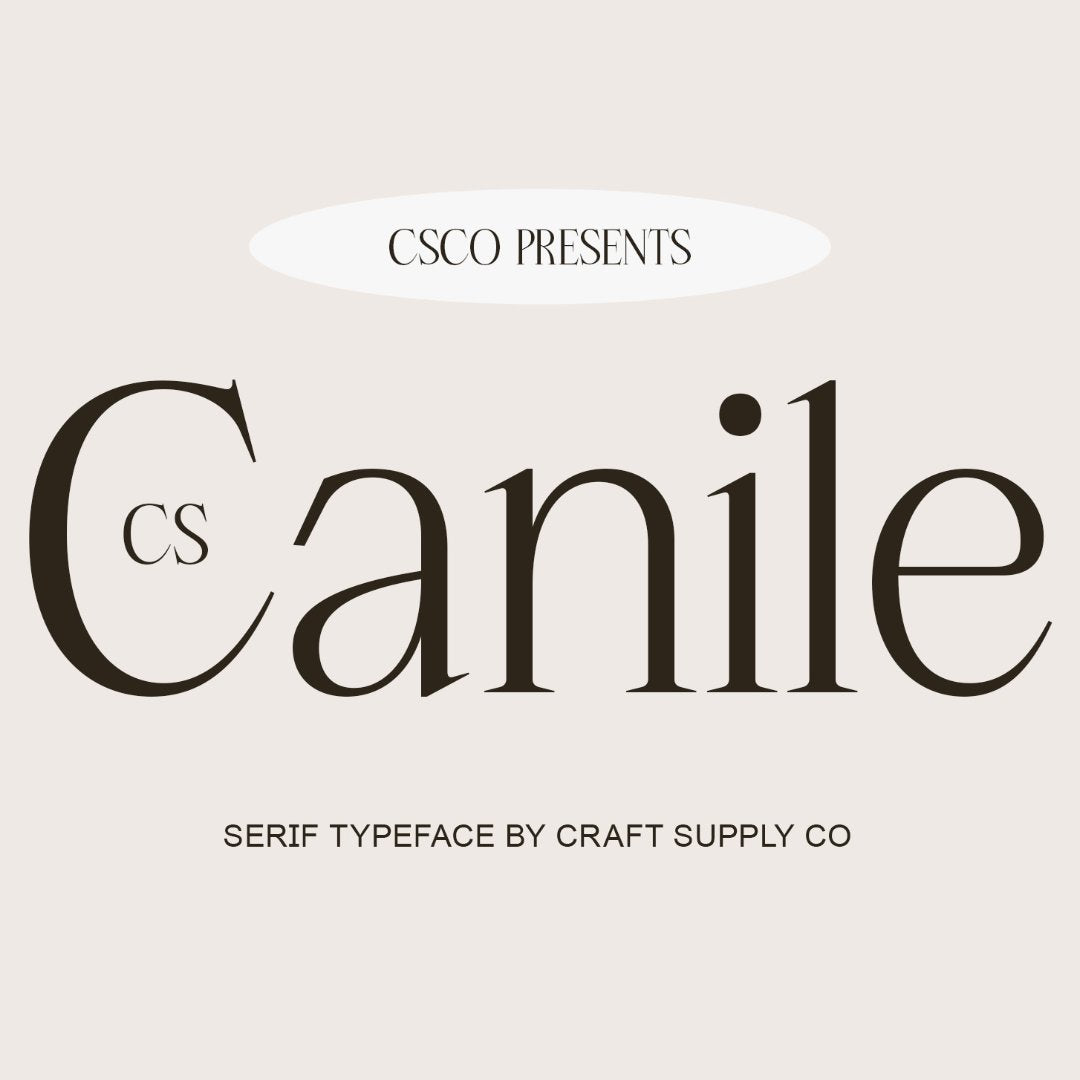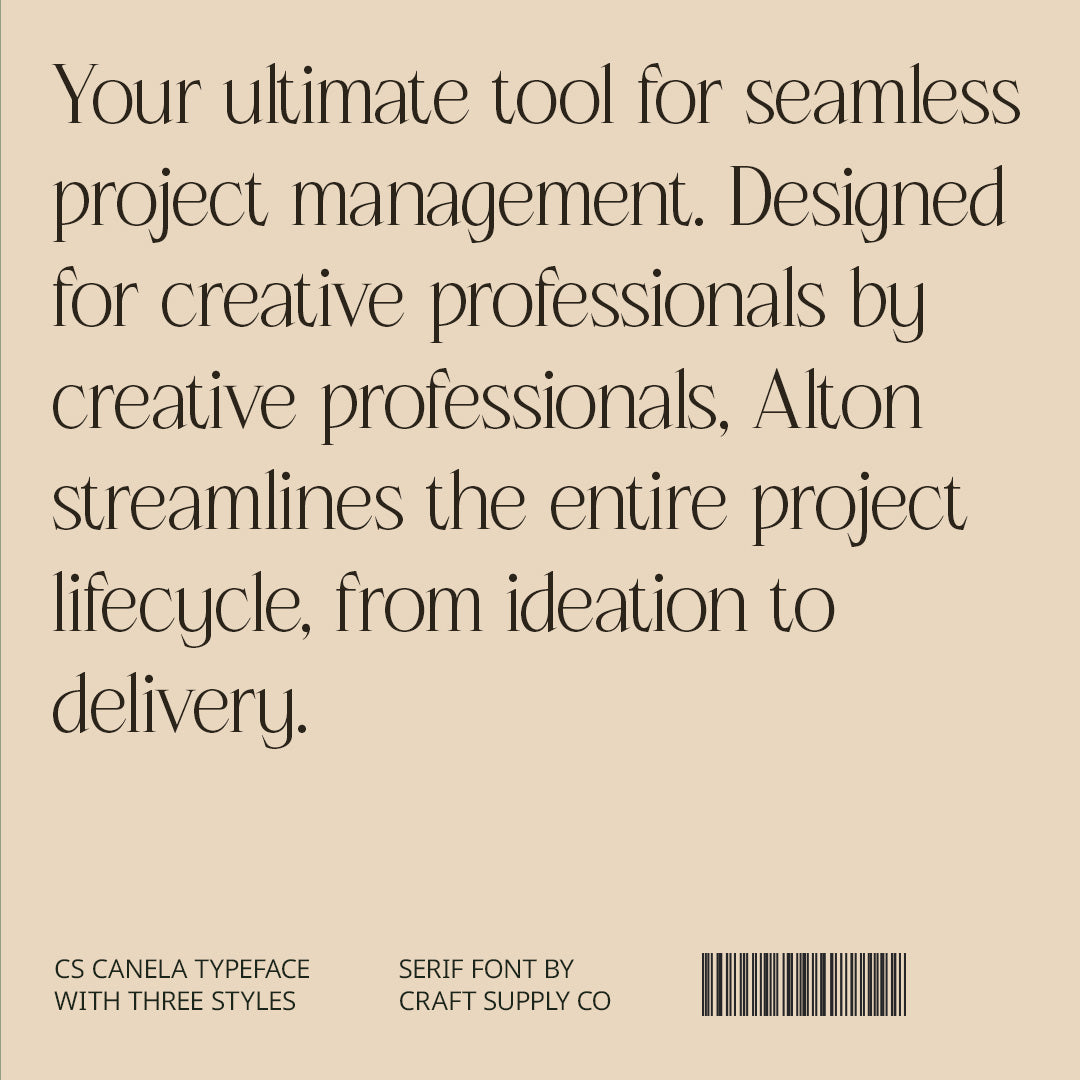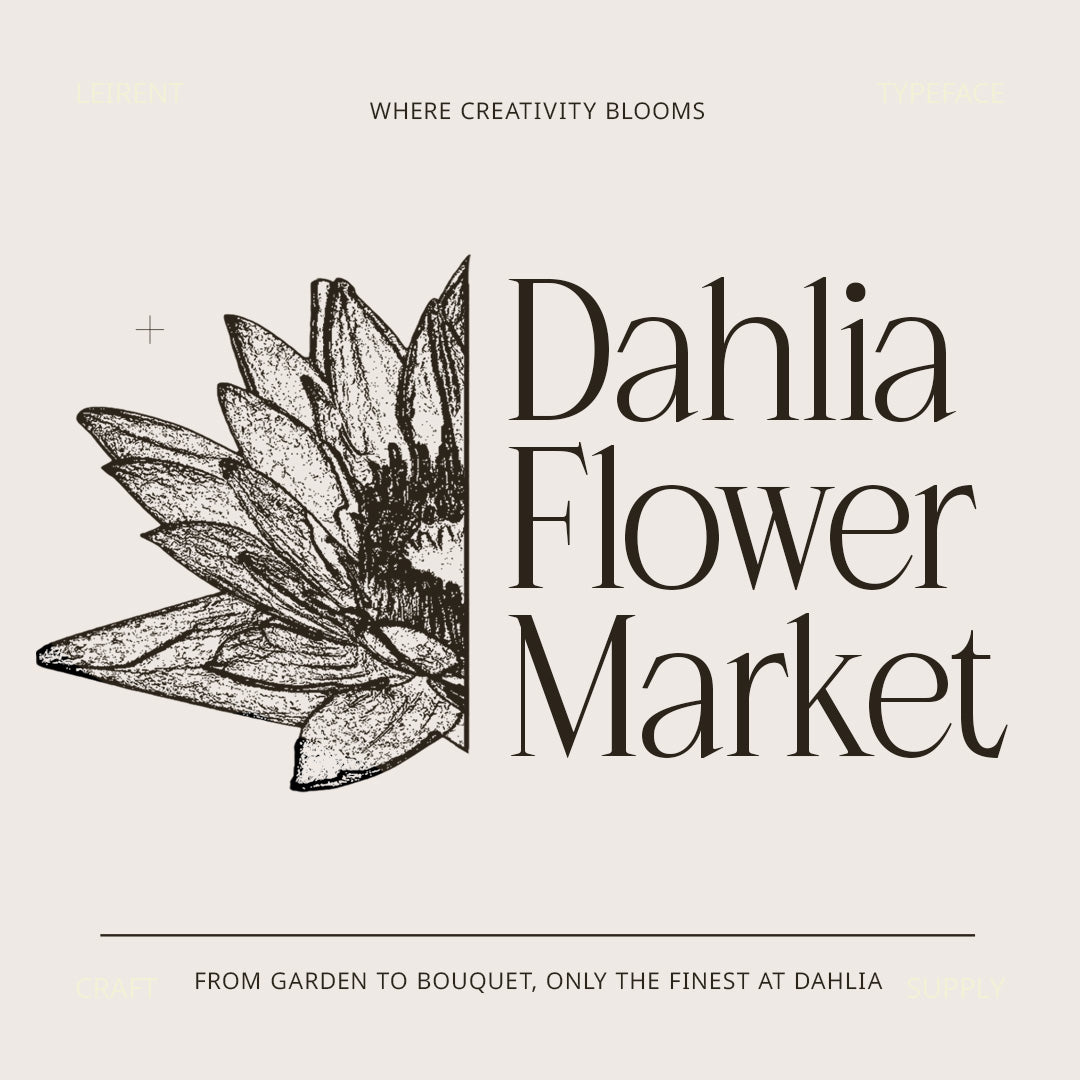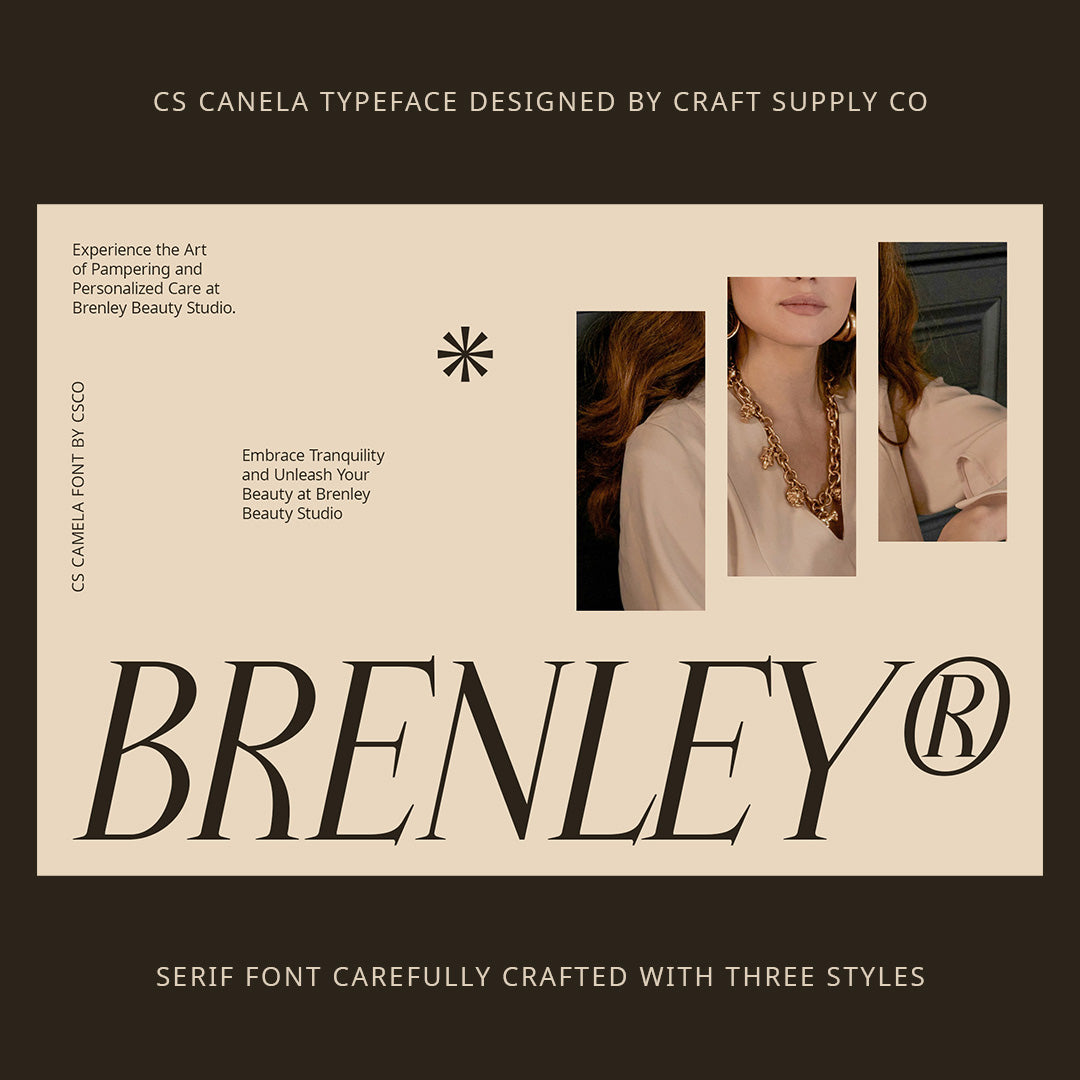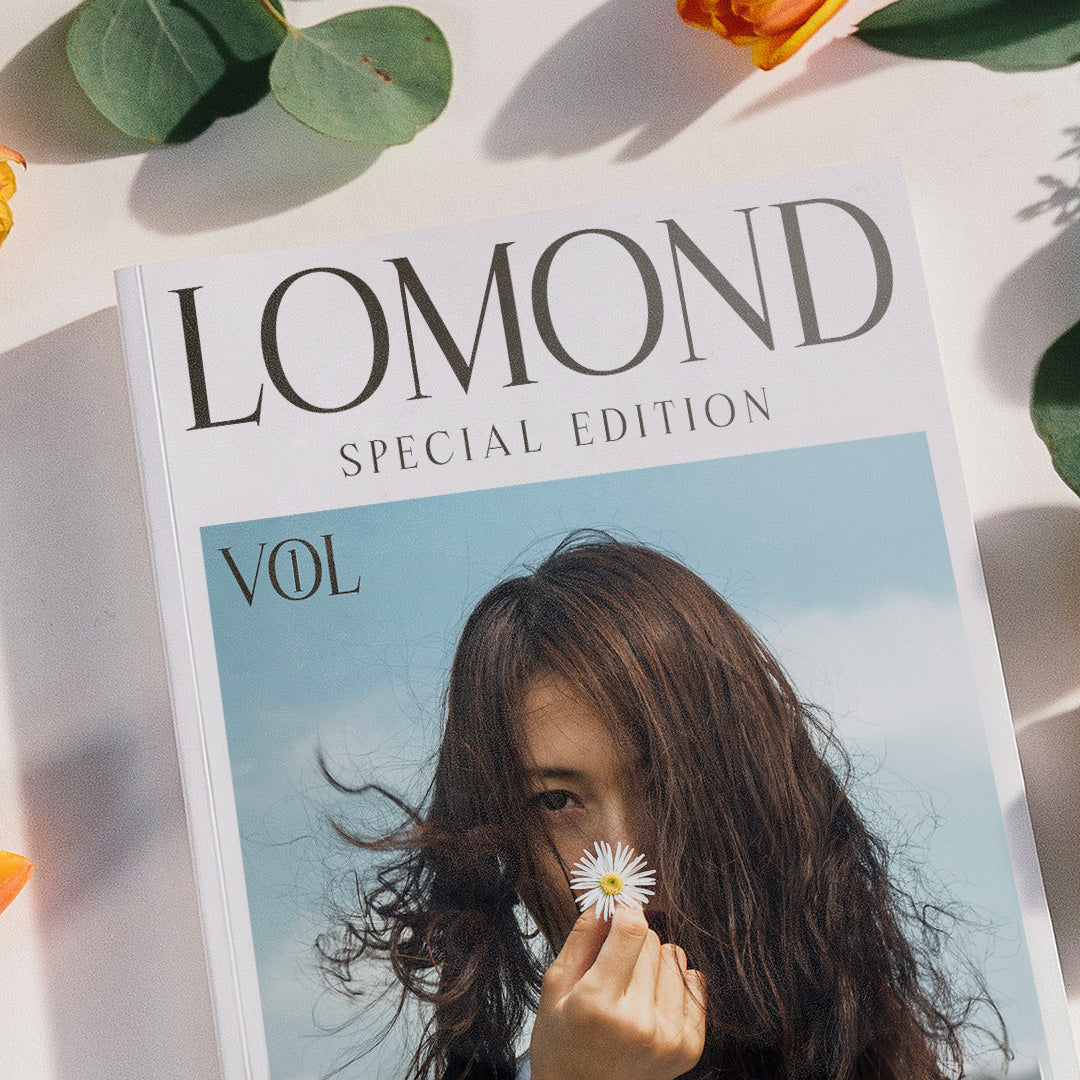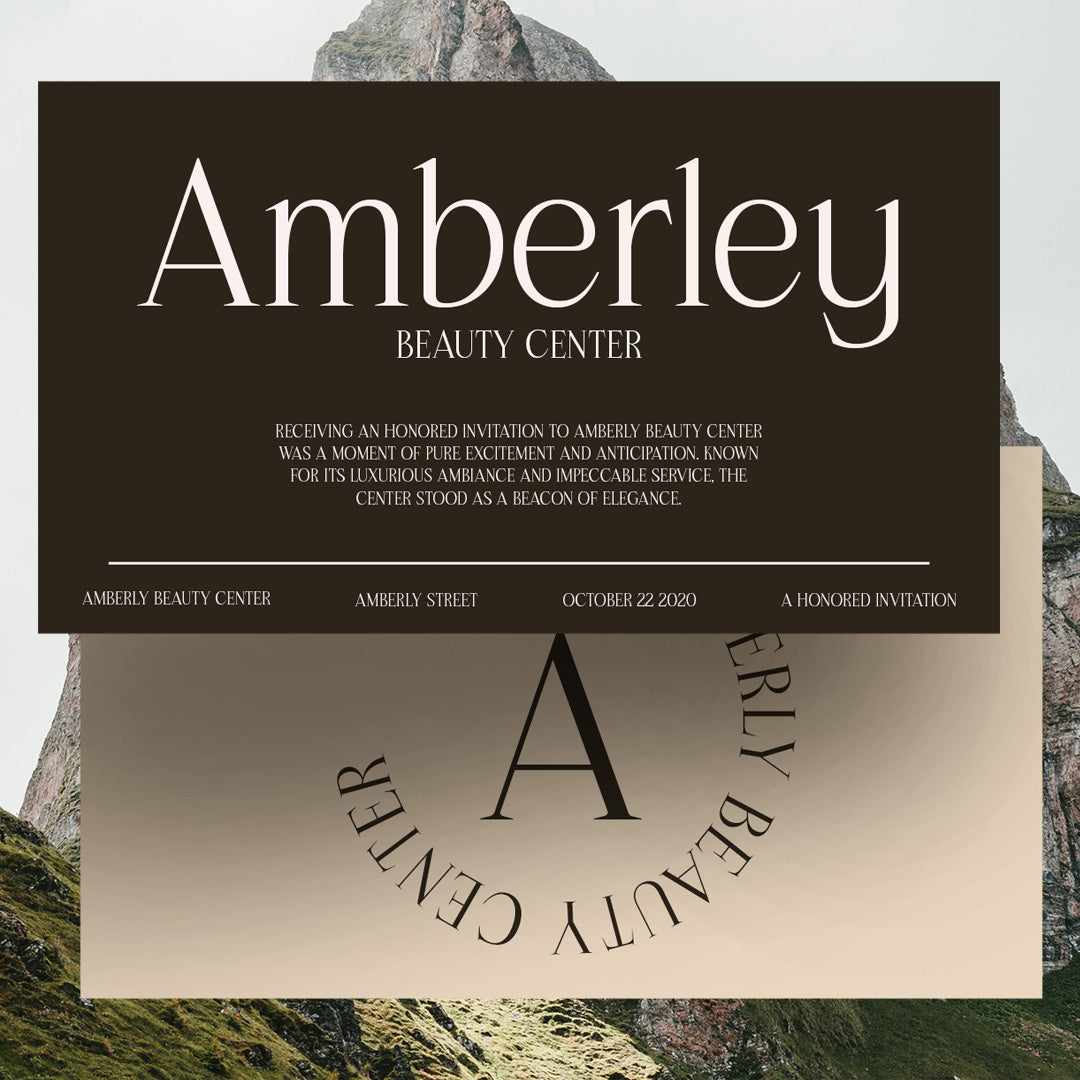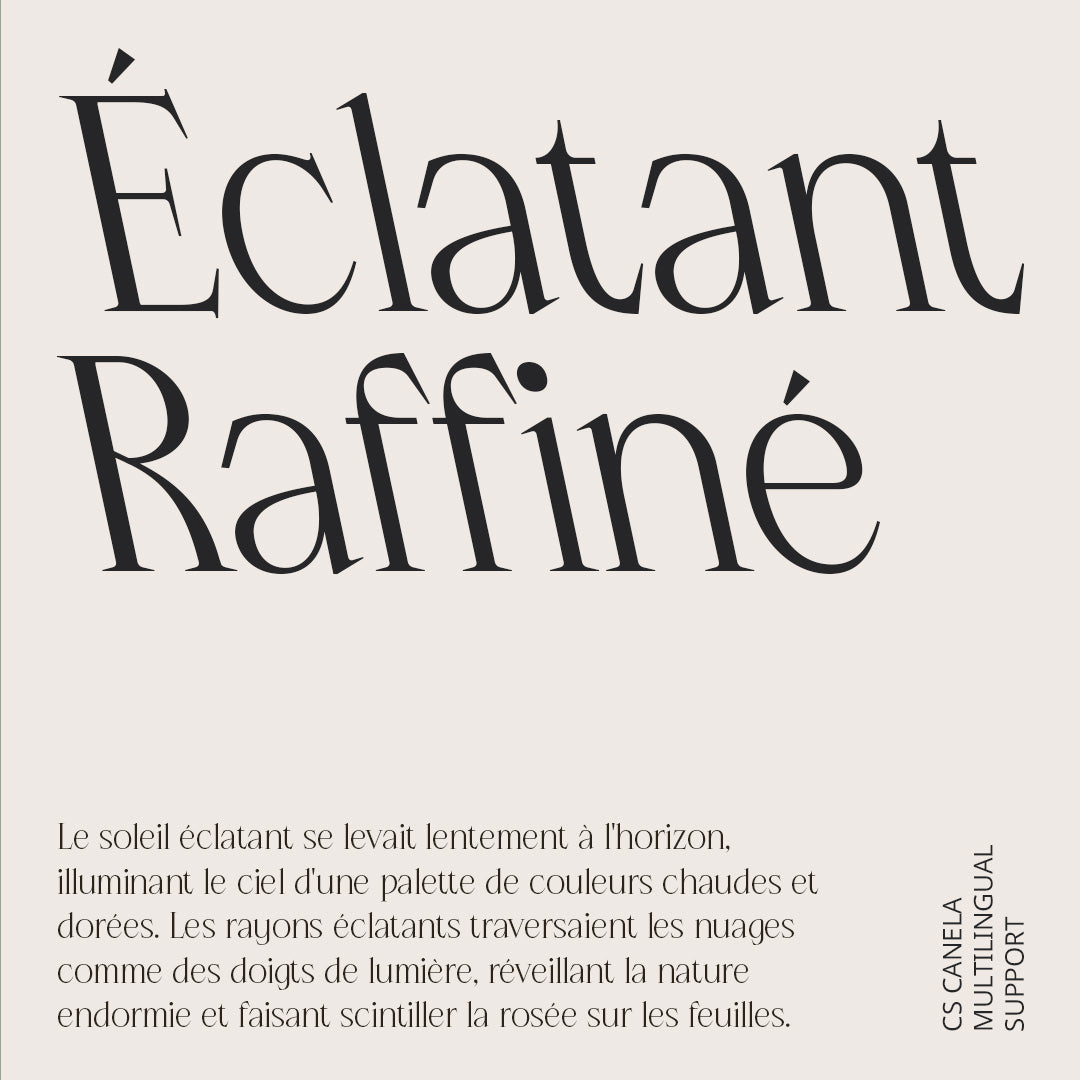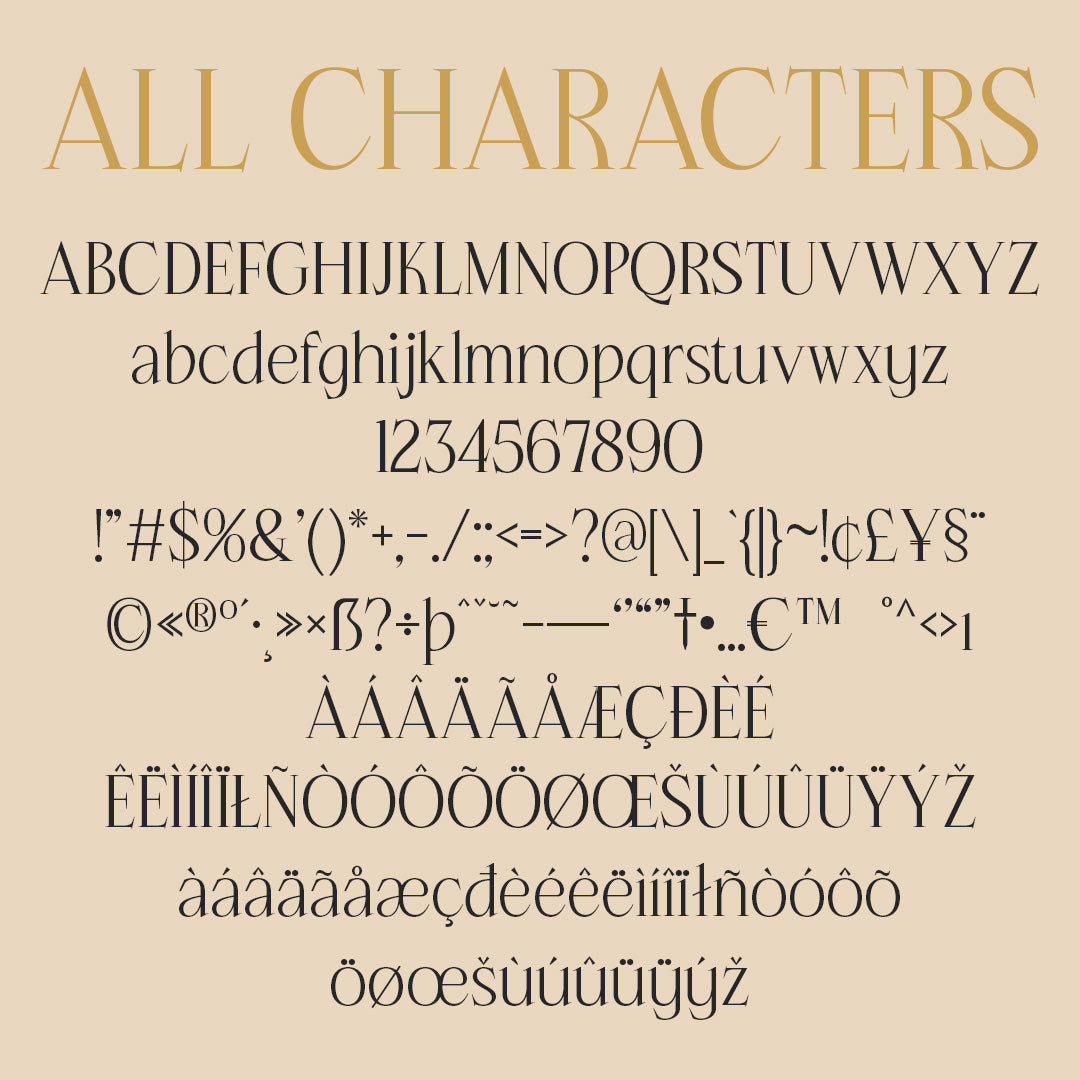
CS Canile – Serif Typeface
CS Canile: Serif Typeface
Elegant and Sophisticated Modern Serif
CS Canile is a modern serif font that exudes elegance and sophistication, perfect for elevating your design projects with a refined touch. Its stylish design enhances professionalism and visual appeal, making it an excellent choice for various applications.
Ideal for Business Cards and Branding
With its polished and classy presentation, CS Canile is ideal for business cards and branding materials. The font’s refined style ensures that your brand stands out with a sense of professionalism and elegance.
Versatile for a Variety of Design Projects
CS Canile’s sophisticated design makes it suitable for a wide range of design projects. Whether you’re working on editorial layouts, luxury packaging, or promotional materials, this font adds a touch of class and sophistication.
Enhance Your Visual Appeal with CS Canile
Choose CS Canile to bring an elegant and professional look to your designs. Its modern serif style ensures a polished and classy presentation, making it the perfect choice for any project that requires a touch of sophistication.
CS Canile Regular
CS Canile Italic
CS Canile Reverse Italic
CS Canile is a modern serif typeface available in three styles: Regular, Italic, and Reverse Italic. It includes uppercase and lowercase characters, OpenType-standard numerals and punctuation, multilingual accent support, and PUA encoding.